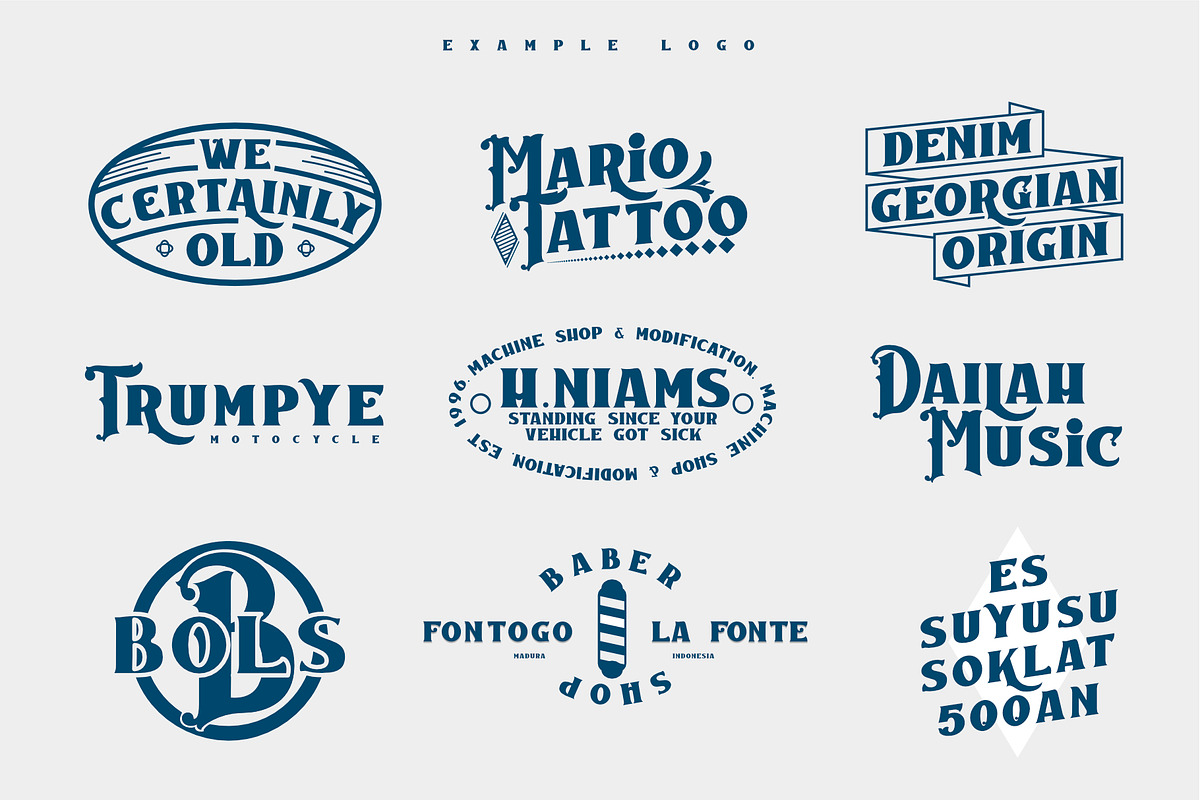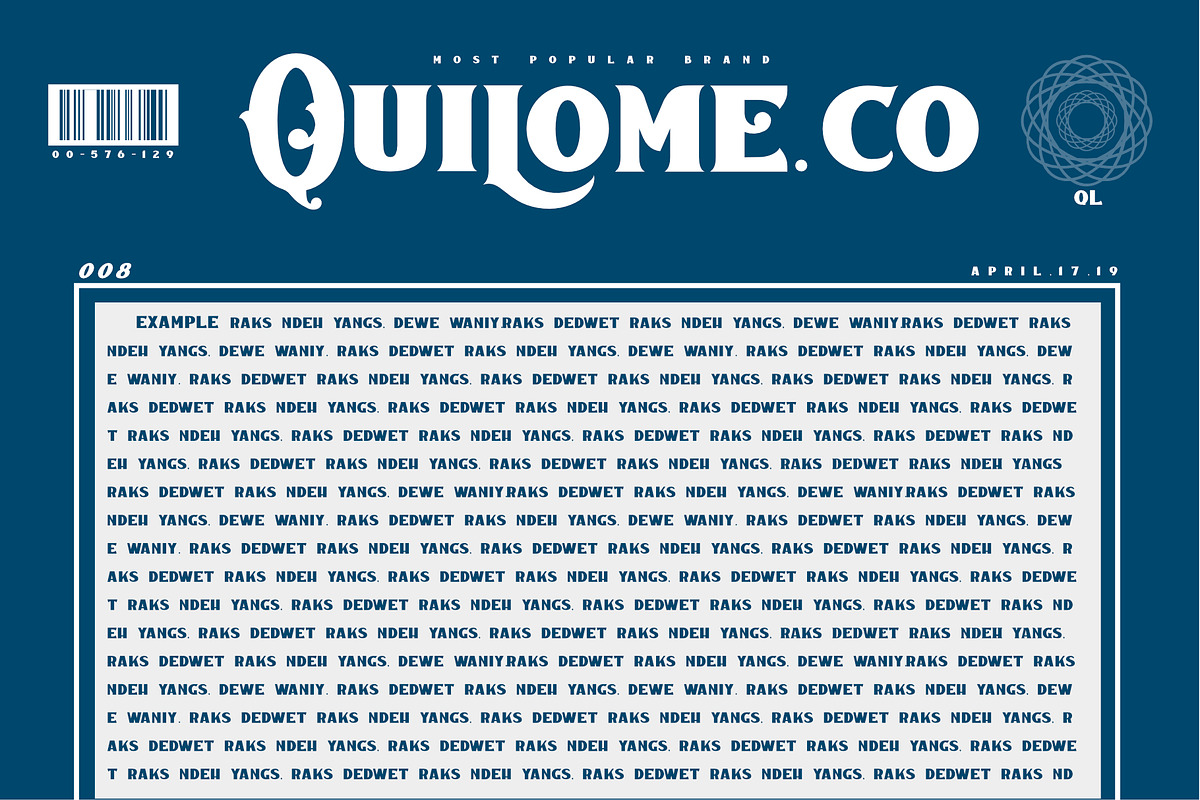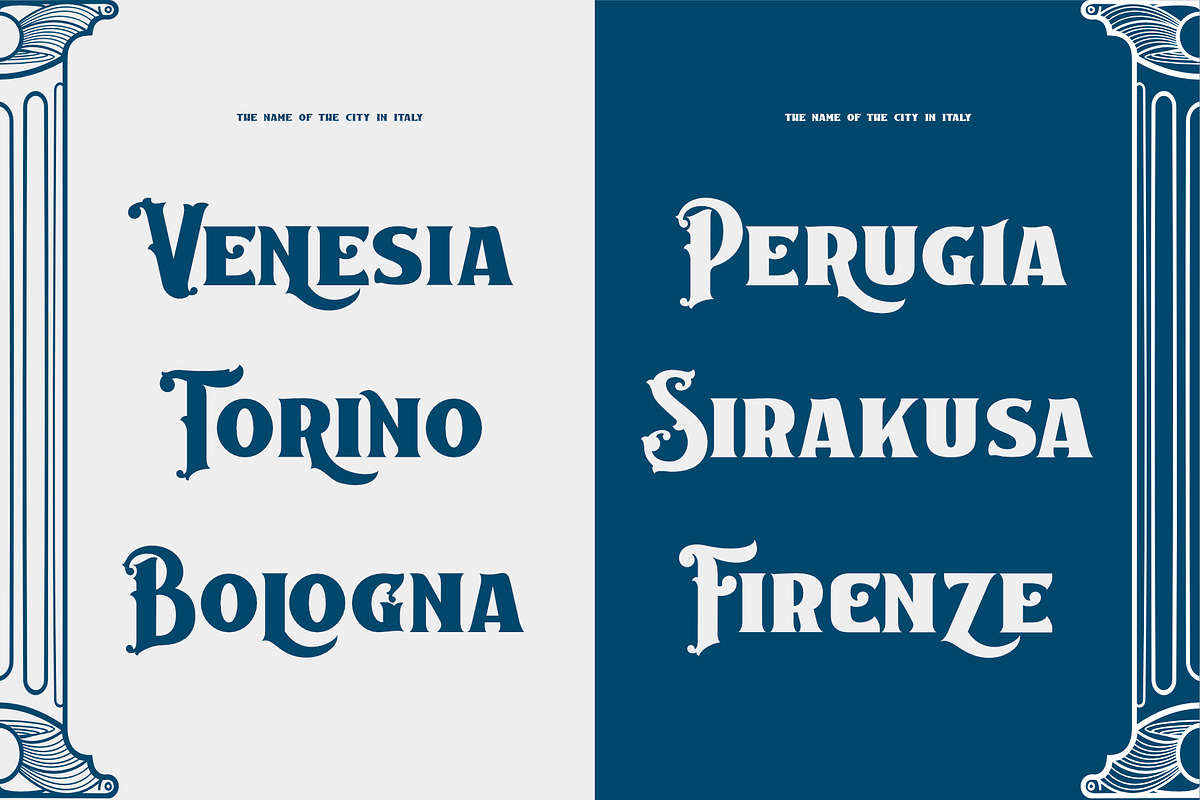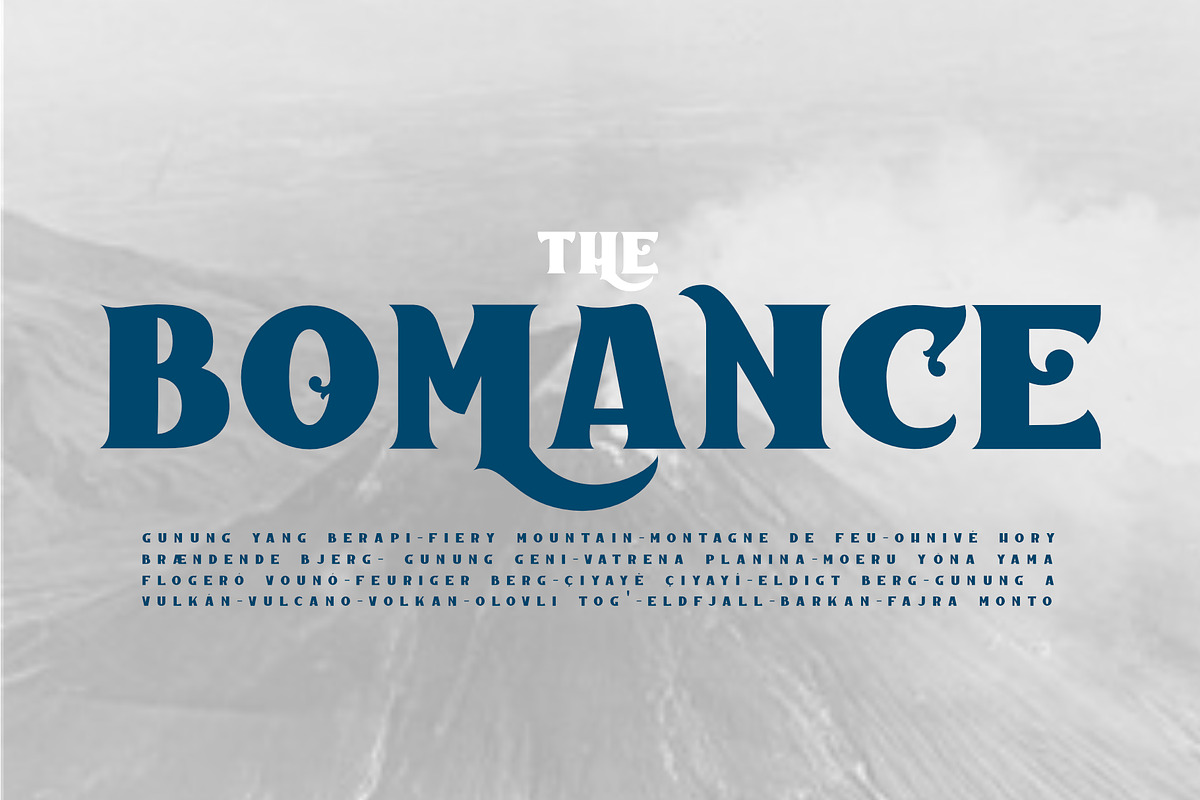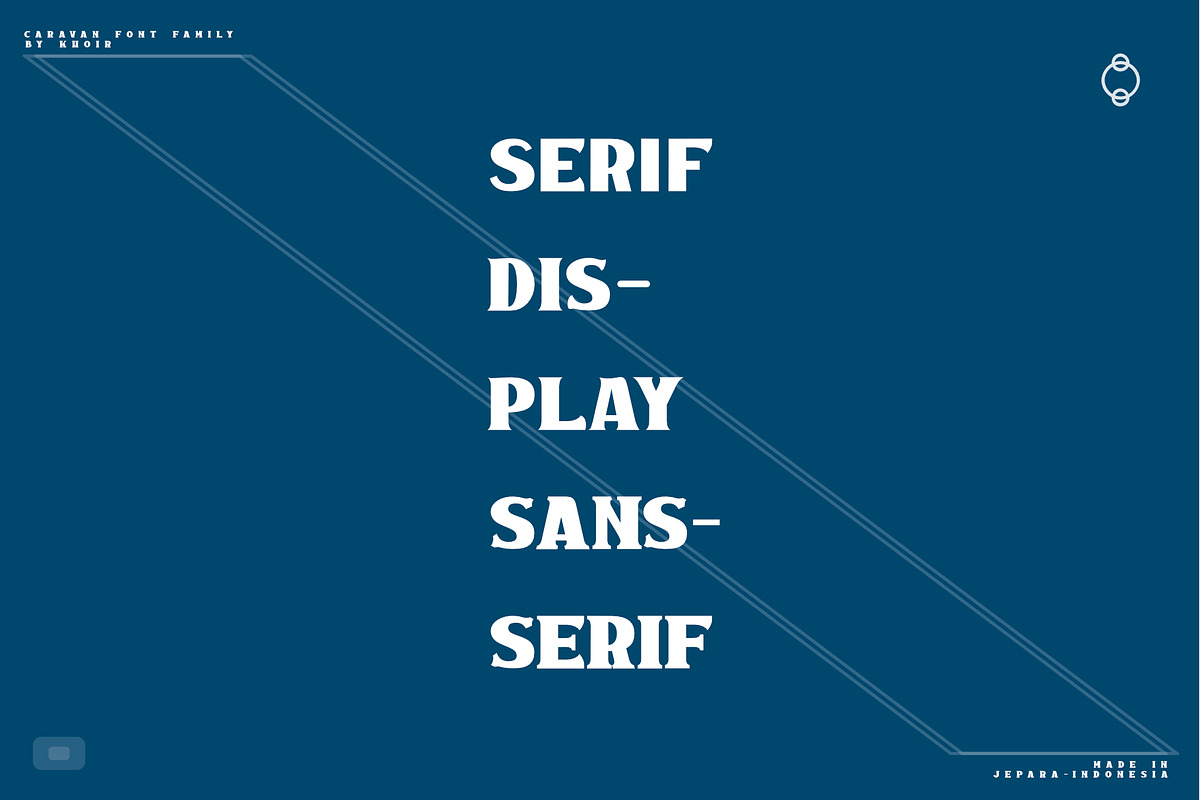
Caravan - Display Font
Introducing classic and elegant Caravan Fonts but don't forget to leave a modern impression in each letter, which combines ancient retro style with a simple and modern style, Caravan Fonts are equipped with full features, in each letter there are interesting alternatives and can be an alternative when designing, there are also an added bonus of Roman-style illustrations, which make you feel young to realize the design you want. so what are you waiting for
Caravan Fonts are good for movie titles, brand names, brending, archives, posters, logos, quotes, product packaging, clothing designs, book covers, and many more uses